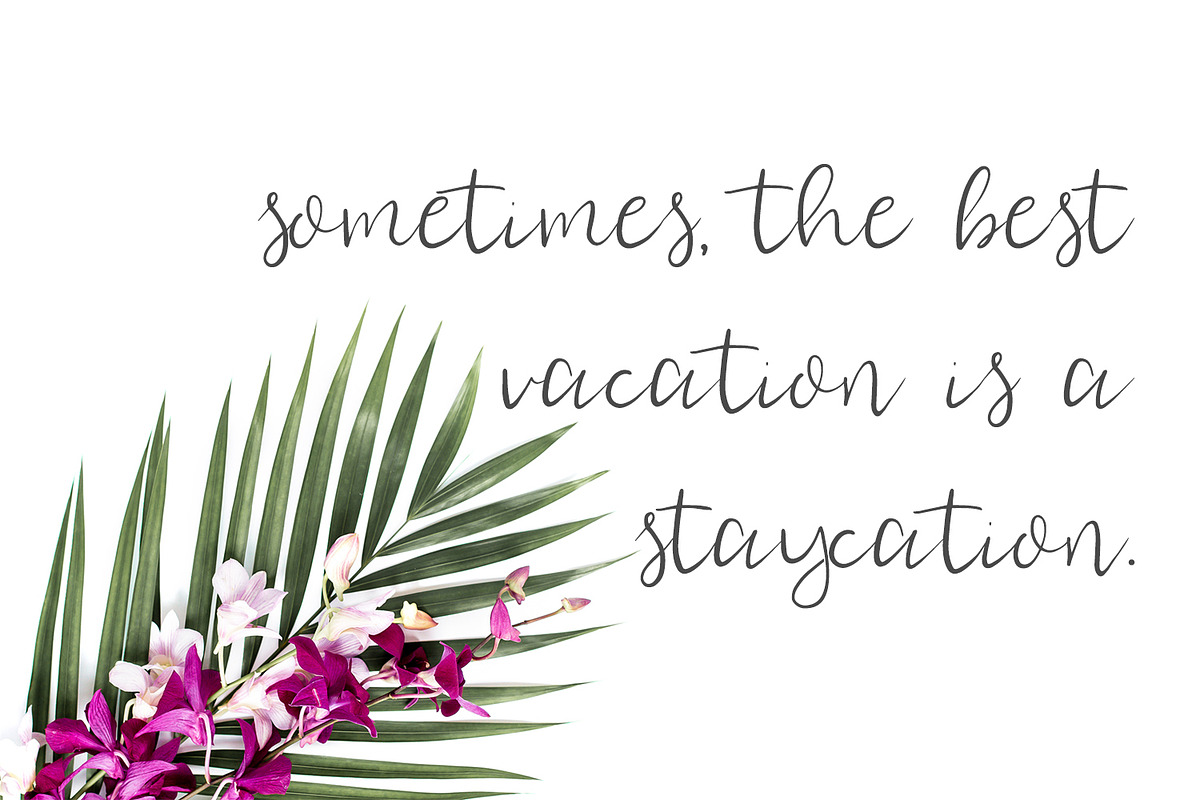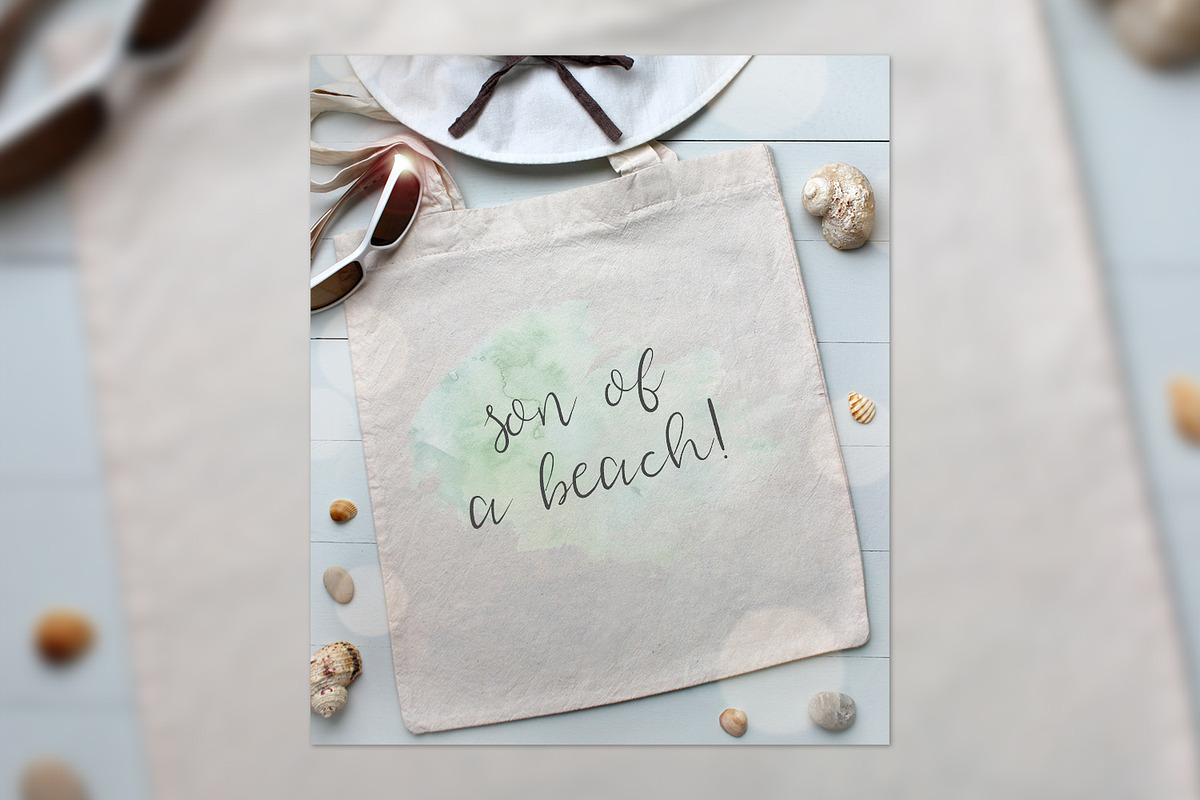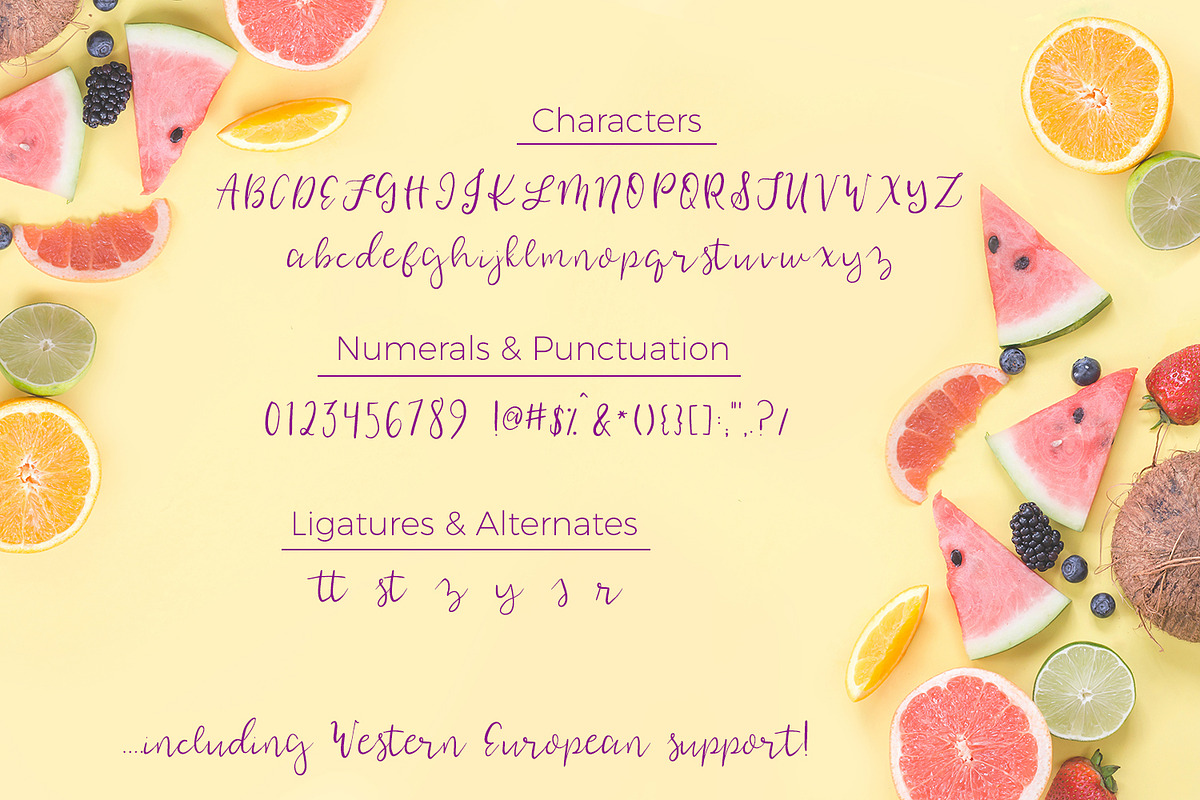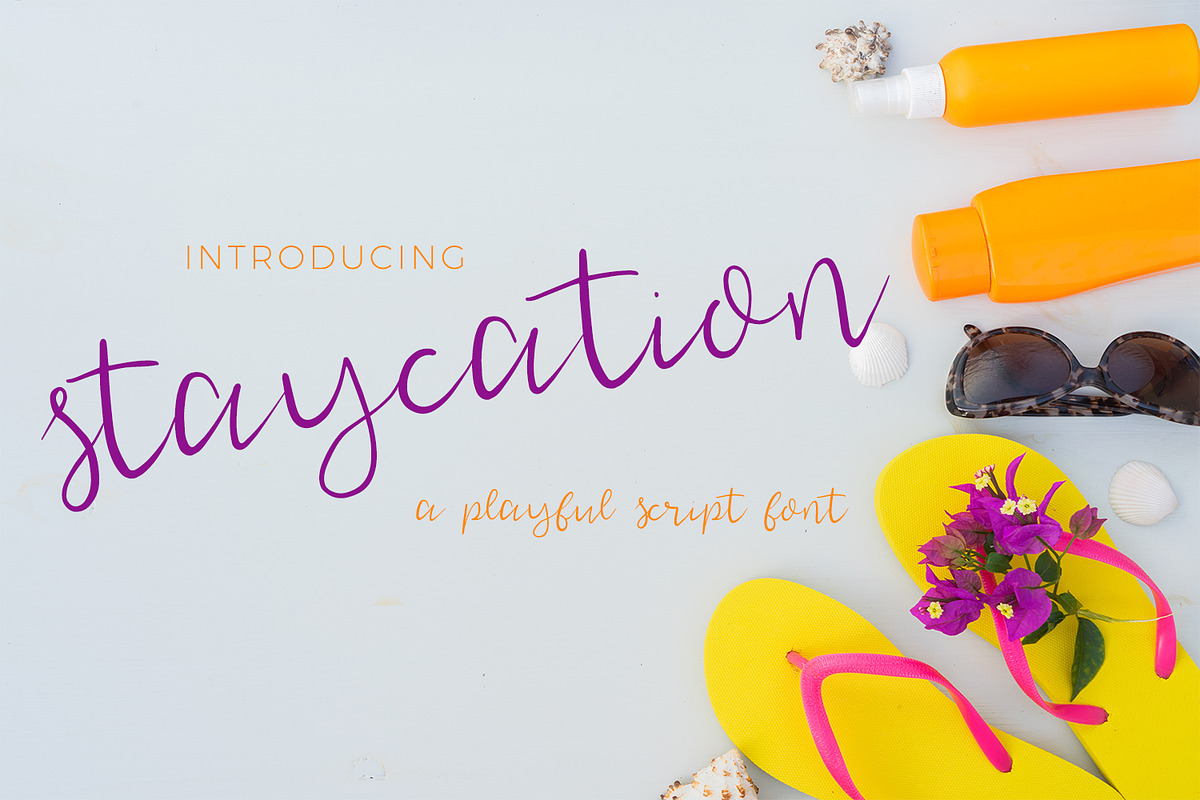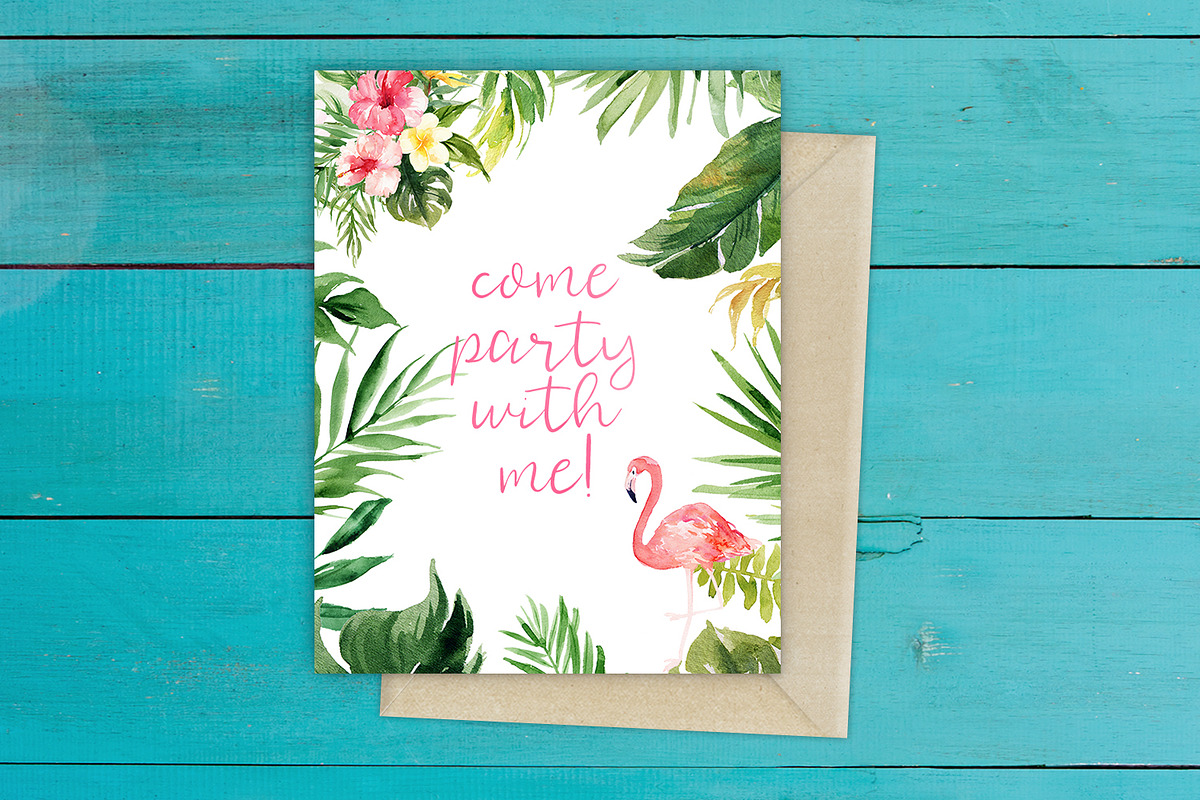
Staycation Script
Staycation is a casual script, effortless like a staycation ought to be. Inspired by coastal living & how every weekend is like a staycation, this cursive font is perfect for a no-frills branding project, invitations, or printable artwork.
Staycation includes some standard ligatures & alternates, as well as Western European language support.